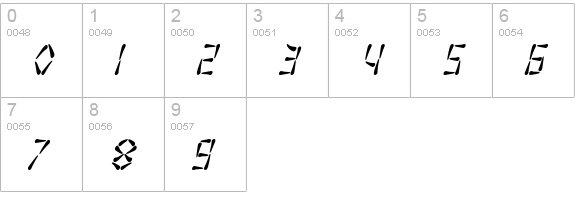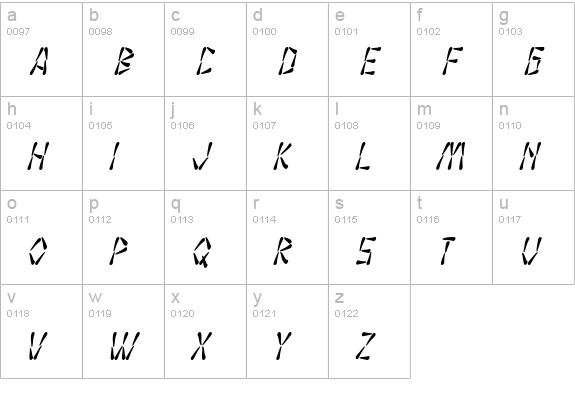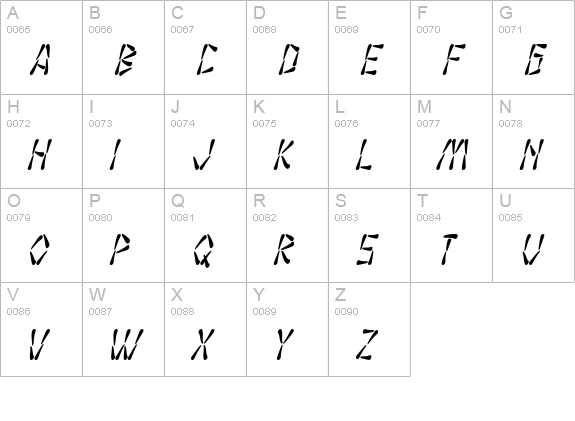
SF Wasabi Condensed Italic Font Details
SF Wasabi Condensed Italic is a distinctive, condensed-width, italic variant in the SF typeface family \xE2\x80\x94 well suited to design and typography projects.
The SF Wasabi Condensed Italic font is a stunning addition to any design project, offering a unique and eye-catching style. With its sleek and modern appearance, this font is perfect for creating a bold and impactful visual experience. The condensed form adds a touch of sophistication, making it ideal for headlines, titles, and any other text that needs to stand out. One of the best things about this font is that it is free! Yes, you heard it right. SF Wasabi Condensed Italic is freely available to download at FontsMarket.com. This means that you can easily access and use this incredible font without spending a dime. Whether you are a professional designer or someone who just wants to add a touch of creativity to their personal projects, this font is a must-have. The SF Wasabi Condensed Italic font offers a wide range of characters, including uppercase and lowercase letters, numbers, punctuation marks, and special symbols. The italic style adds a sense of motion and elegance to your designs, making them visually captivating and engaging. Whether you are designing a logo, creating a poster, or working on a website, the SF Wasabi Condensed Italic font will elevate your project to new heights. Its versatility allows it to be used in various contexts, from fashion and beauty to technology and corporate branding. So why wait? Go ahead and download SF Wasabi Condensed Italic font from FontsMarket.com today, and let your creativity soar. With its stunning design and the fact that it is freely available, this font is truly a game-changer for any design enthusiast.